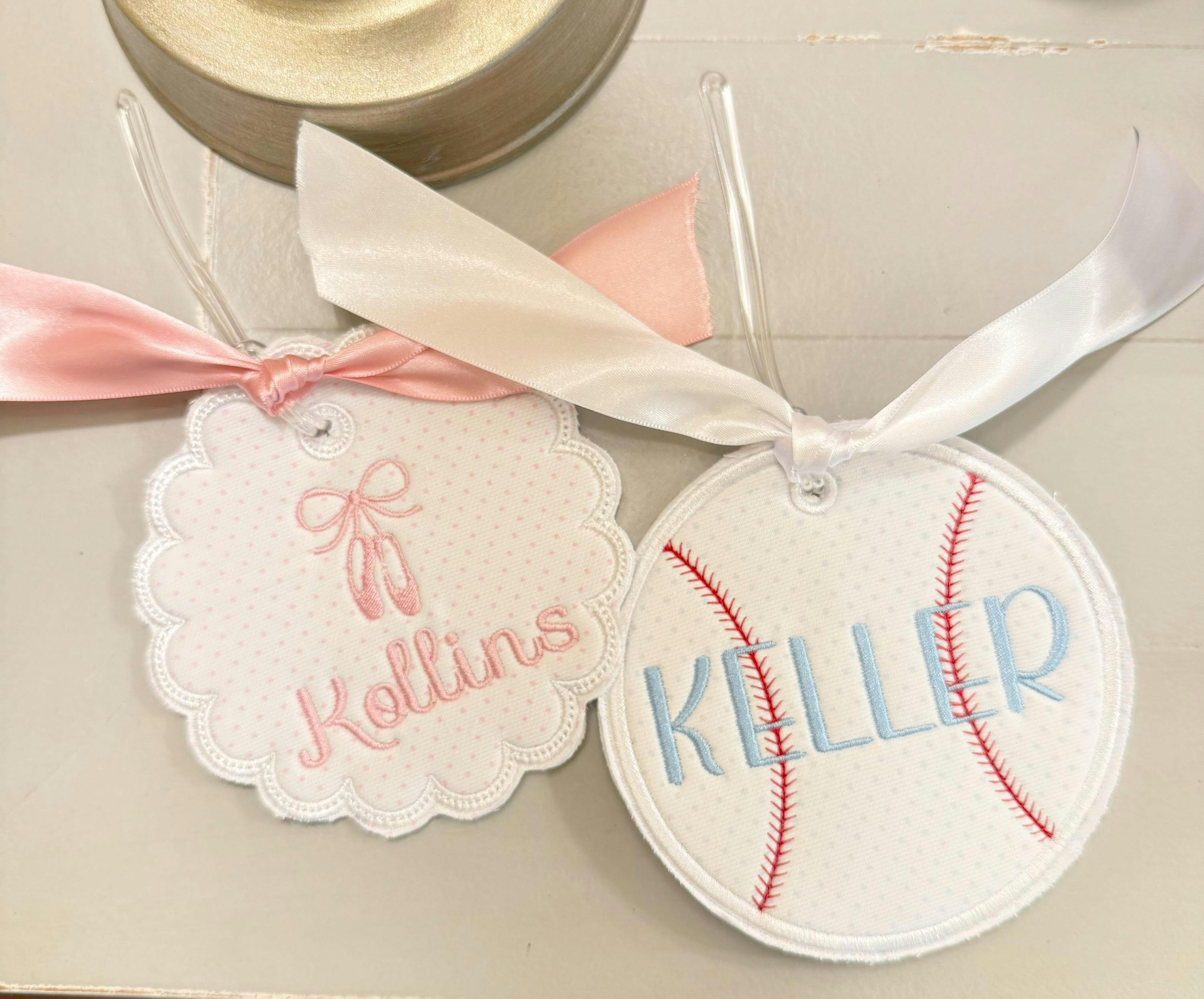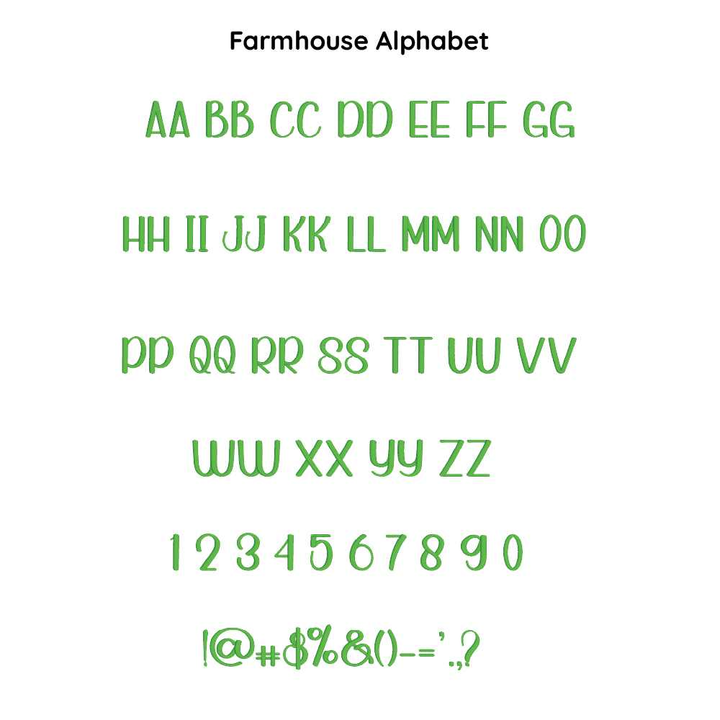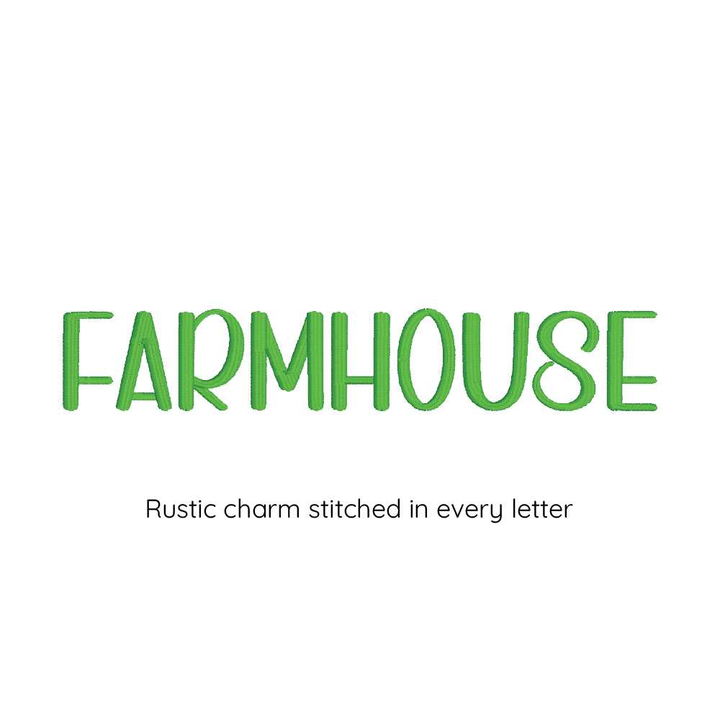
Farmhouse Digital Embroidery Font
About Farmhouse Digital Embroidery Font:
Add a touch of rustic charm to your embroidery projects with Farmhouse . Inspired by the cozy warmth of the countryside, this font has a charming vintage style. Perfect for adding a homemade touch to kitchen towels, aprons, and more, Farmhouse is the must-have font for any DIY enthusiast looking to create that timeless farmhouse feel.